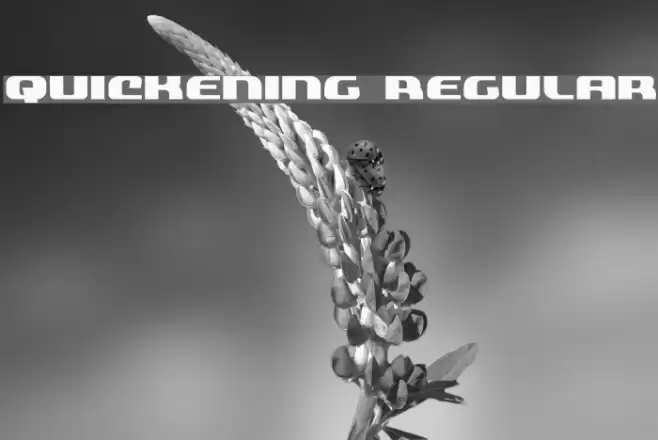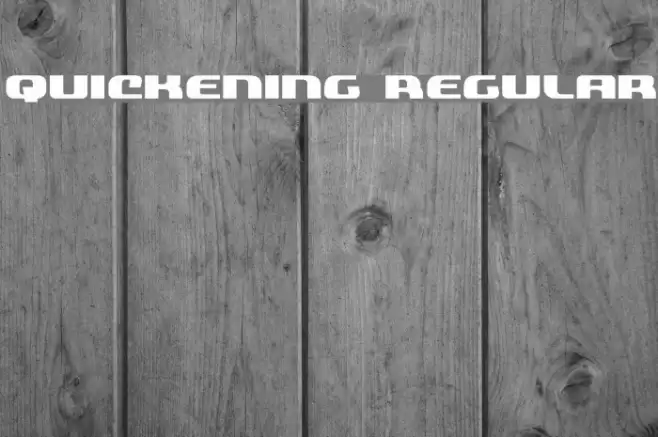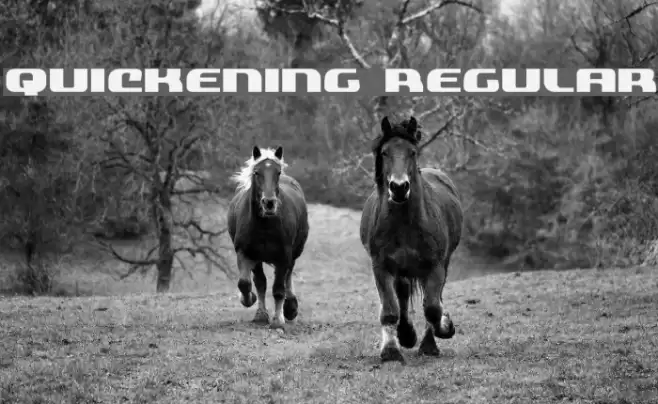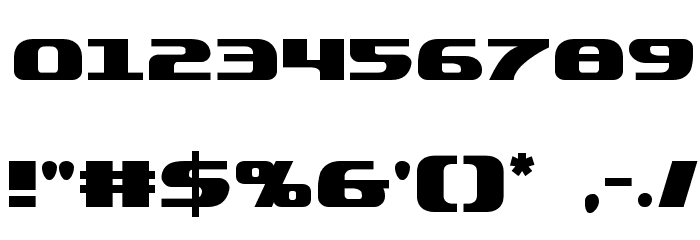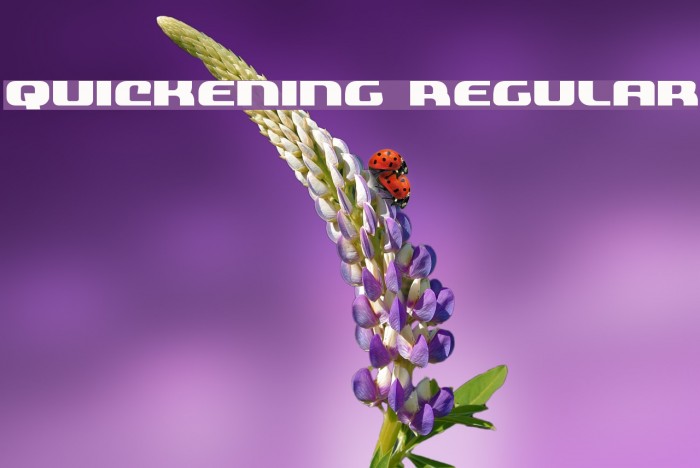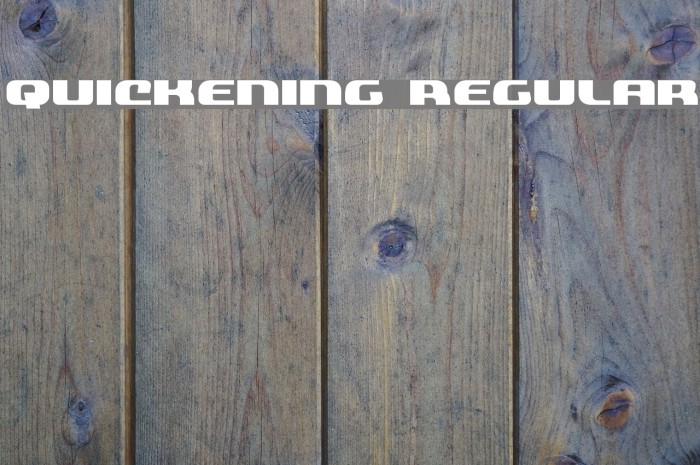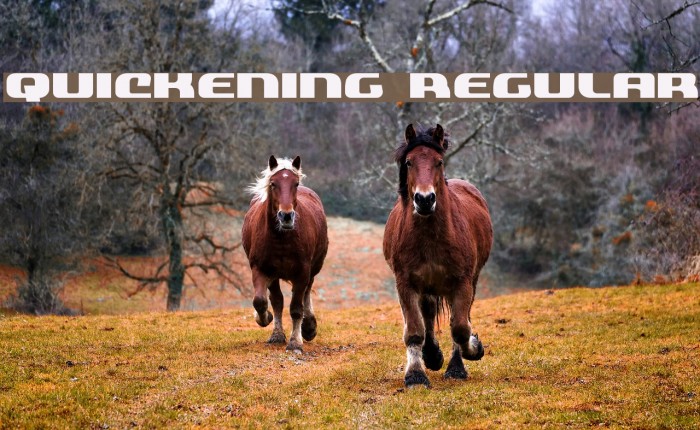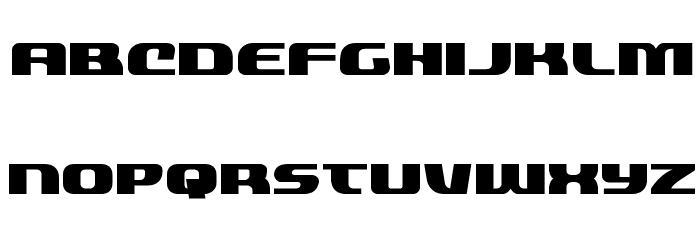
Quickening Regular Font
Quickening Regular Description
This font features a bold and futuristic design with strong geometric shapes and a distinct angular style. The uppercase letters are particularly striking, with a uniform height and width that gives a sense of stability and strength. The lowercase letters maintain this boldness, providing a cohesive look across different text cases. The numbers are equally robust, making them stand out in any design. Special characters are designed with the same attention to detail, ensuring they integrate seamlessly with the rest of the font. The overall appearance is modern and dynamic, suitable for projects that require a strong visual impact.
A bold, geometric font with a futuristic and dynamic style.
- Proposed Projects: Ideal for branding, posters, headlines, and any project that requires a modern and impactful typeface.